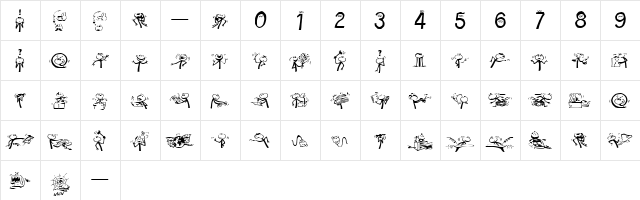
LTOffix Medium Font Preview
LTOffix Medium
Design Context for LTOffix Typeface
LTOffix is a composed and adaptable typeface that performs quietly and consistently across a wide range of design contexts.